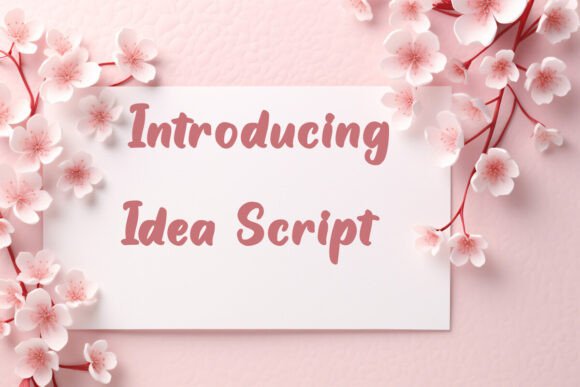
Introduction to Idea Script Font
Presenting Idea Script – an unparalleled versatility that transcends across multiple arenas of design.
Be it for a bold statement on shirts or a quirky decal for stickers, this font radiates a unique charm Incorporate Idea Script into your brand aesthetics to manifest a signature style or employ it in magazines to create captivating headlines.
Key Features of Idea Script Font